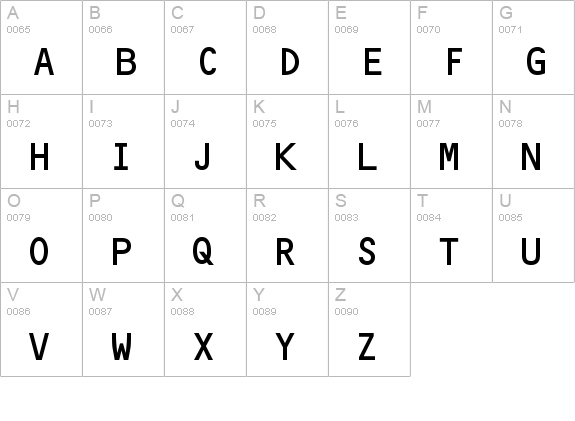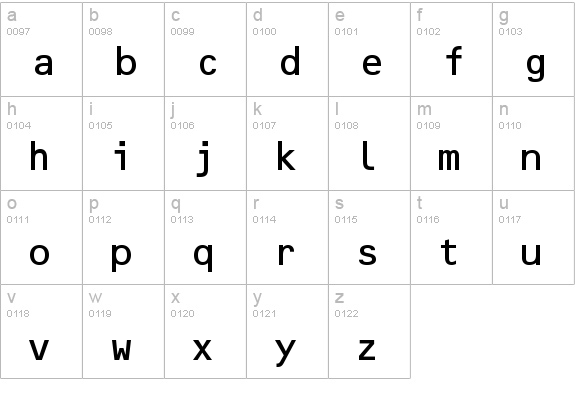
OCR B Std Medium Font Details
OCR B Std Medium is a balanced, medium-weight variant in the OCR typeface family \xE2\x80\x94 well suited to sub-headlines, navigation, and balanced editorial work.
OCR B Std Medium is a versatile and legible font that is ideal for various design projects. With its clean and modern look, this font is perfect for text-heavy applications such as documents, reports, and presentations. The medium weight of the font strikes a balance between readability and impact, making it suitable for both headings and body text. One of the best features of OCR B Std Medium is that it is available for free download at FontsMarket.com. This means that you can easily access and use this font without any cost, making it a valuable addition to your font library. Whether you are a professional designer or a casual user, OCR B Std Medium offers a high-quality typographic solution that is both functional and aesthetically pleasing.